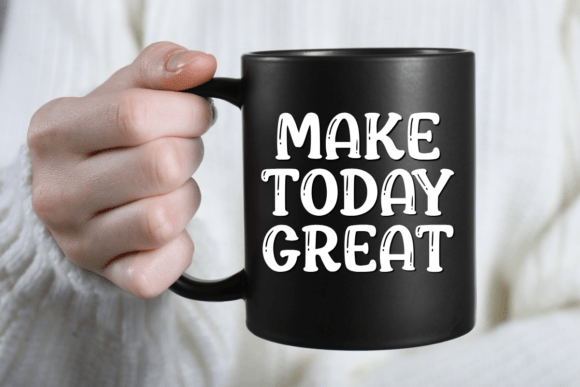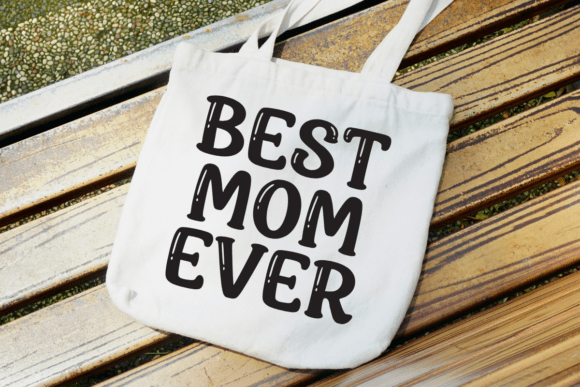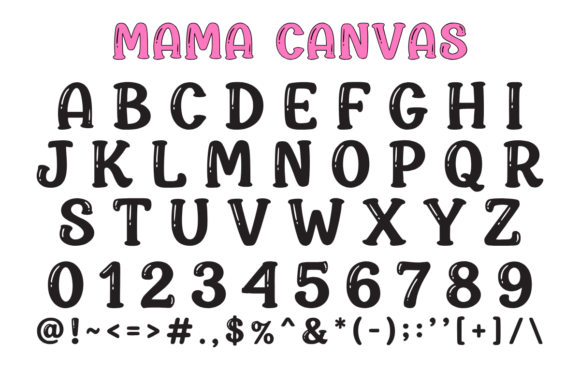
Introduction to Mama Canvas Font
Have you ever found yourself in a creative flow, surrounded by paint, glitter, and a dash of imagination? That’s where the magic happens, and a beautiful DIY project is born. For crafty souls like you, the right font can make all the difference between a good design and a great one. That’s why we’re excited to introduce you to the Mama Canvas Font, a charming bubble display font designed specifically for the crafting community.
With its soft, rounded edges and “puffy” aesthetic, Mama Canvas Font brings a sense of warmth and fun to any DIY project. Whether you’re creating eye-catching t-shirts, personalized mugs, nursery wall art, or festive greeting cards, this font is the perfect design resource to boost your creativity. Its bold weight ensures clean cuts and high readability, making it a valuable addition to your digital crafting toolkit. And the best part? It’s available for free download, so you can start designing your next creative project right away.
Mama Canvas Font
- High-quality design resource ideal for creative projects and digital art
- Comes with a transparent background for seamless integration into various designs
- Supports a wide range of resolutions, making it suitable for both print and digital designs
- Features a unique, hand-drawn style with subtle texture and imperfections
- Font size: 1,000 glyphs, allowing for extensive character set and language support
Honest Review: Mama Canvas Font
I recently had the chance to work with the Mama Canvas Font, and I must say it’s a lovely addition to any creative project. The font is a beautiful, high-quality resource that can really elevate the look and feel of your designs.
Here are some things that work well with the Mama Canvas Font:
- ✨ The font is highly customizable, allowing you to adjust the size, color, and style to suit your needs.
- ✨ The transparent background makes it easy to layer over other design elements.
- ⚠️ The font may not be as versatile as some other options, with limited support for certain languages.
Overall, I was impressed with the Mama Canvas Font. It’s a great choice for anyone looking for a high-quality, free font to add some creativity to their design project.
Tips for Getting the Most Out of Mama Canvas Font
For a high-quality design, use Mama Canvas Font in conjunction with other design resources. Experiment with different font sizes, colors, and backgrounds to create a unique look. You can also use the font in creative projects such as invitations, posters, and social media graphics.
Mama Canvas Font is a versatile design resource that can be used in a variety of creative projects. Some common use cases include:
- Invitations and event graphics
- Social media graphics and ads
- Personalized gifts and stationery